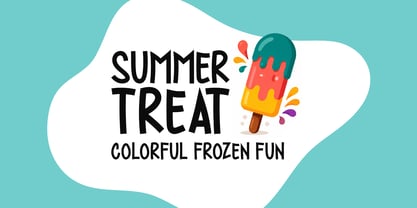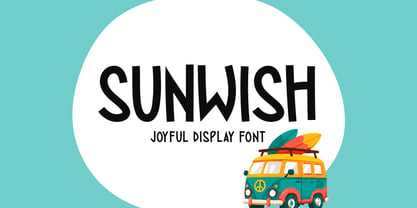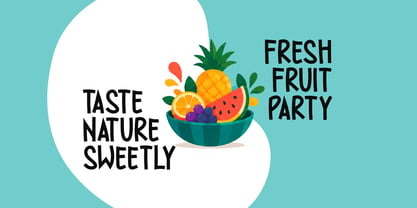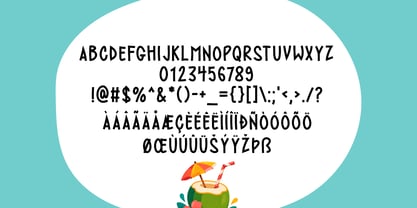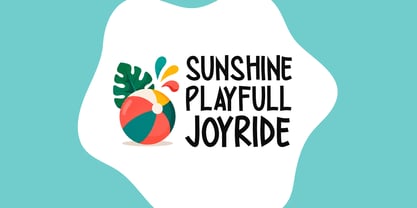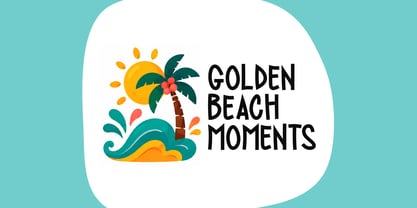
Sunwish
von Seemly Fonts
Sunwish is a joyful display font filled with playful energy and summer-inspired charm. Its tall, quirky letterforms create a fun and friendly personality that instantly grabs attention. Perfect for children's products, party invitations, branding, packaging, posters, and social media designs, Sunwish brings a bright, cheerful, and memorable vibe to every creative project.
Designer: Md. Sohail Bhuiyan
Foundry: Seemly Fonts